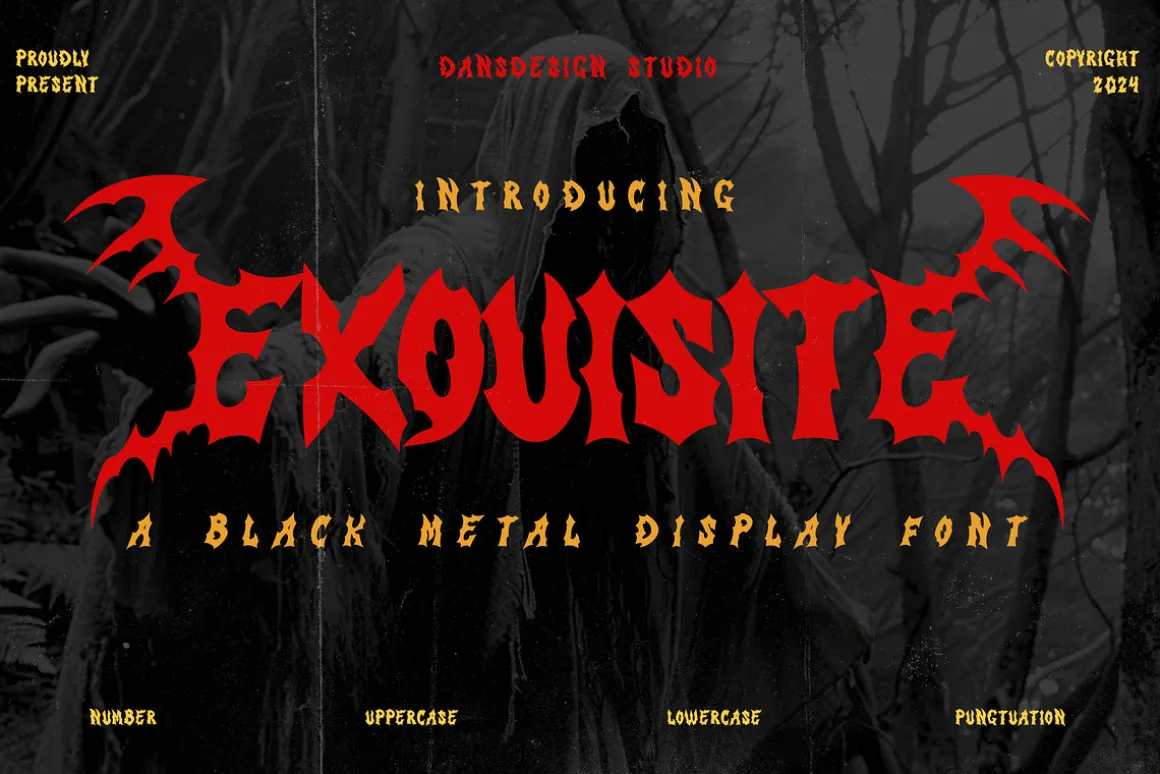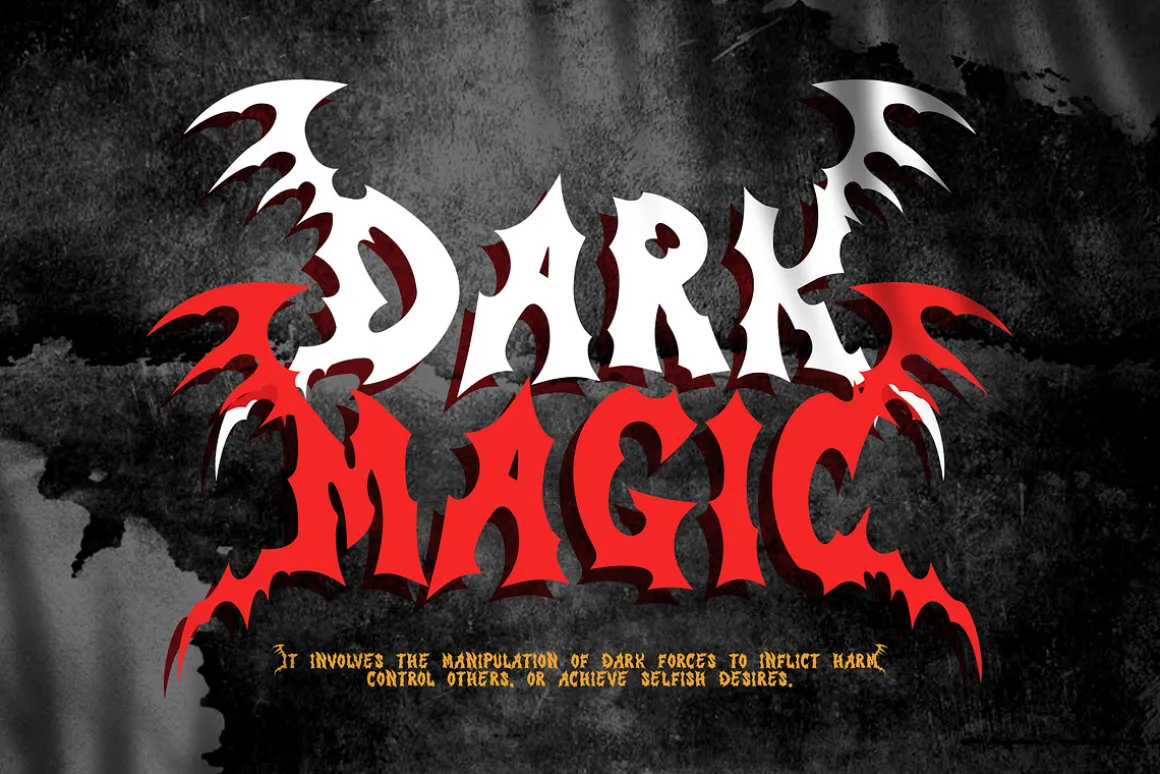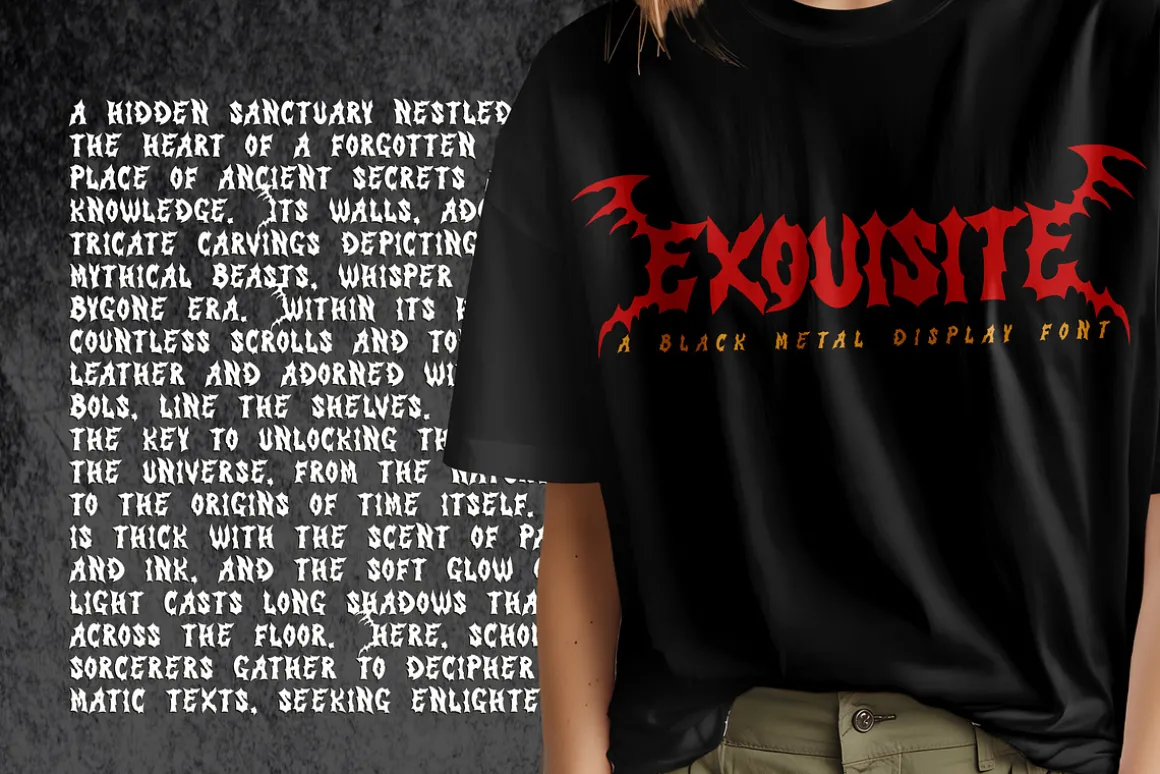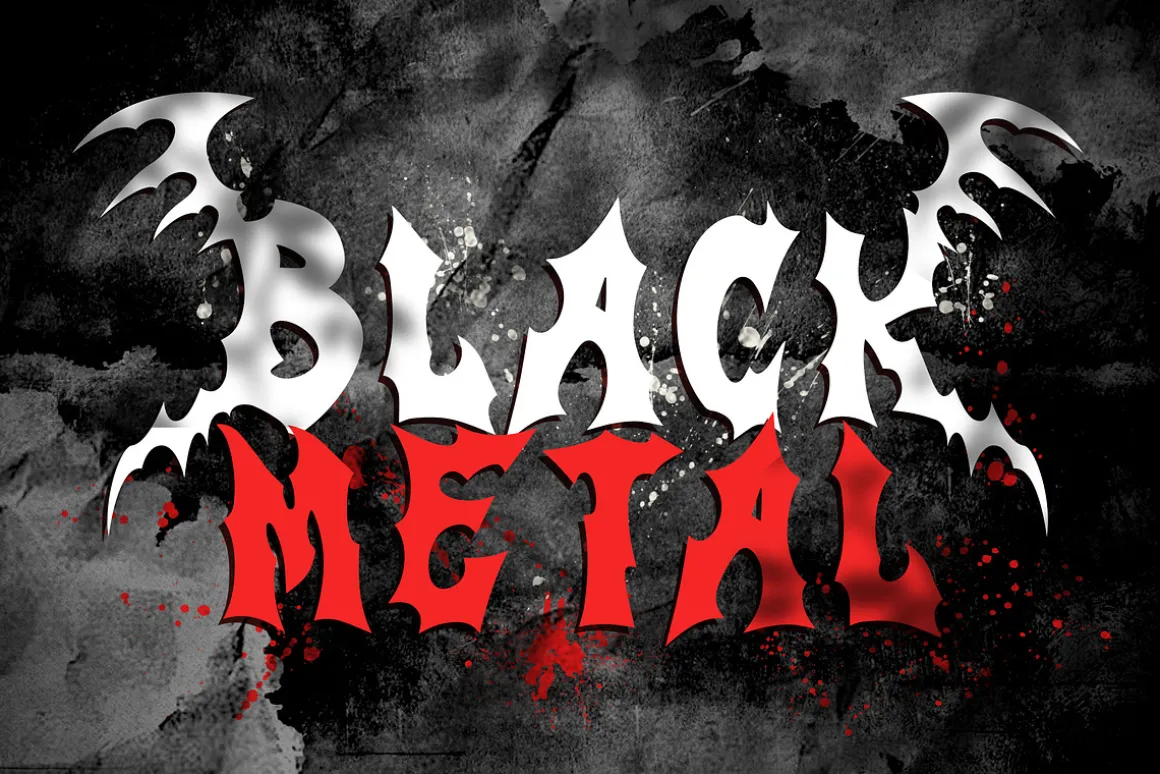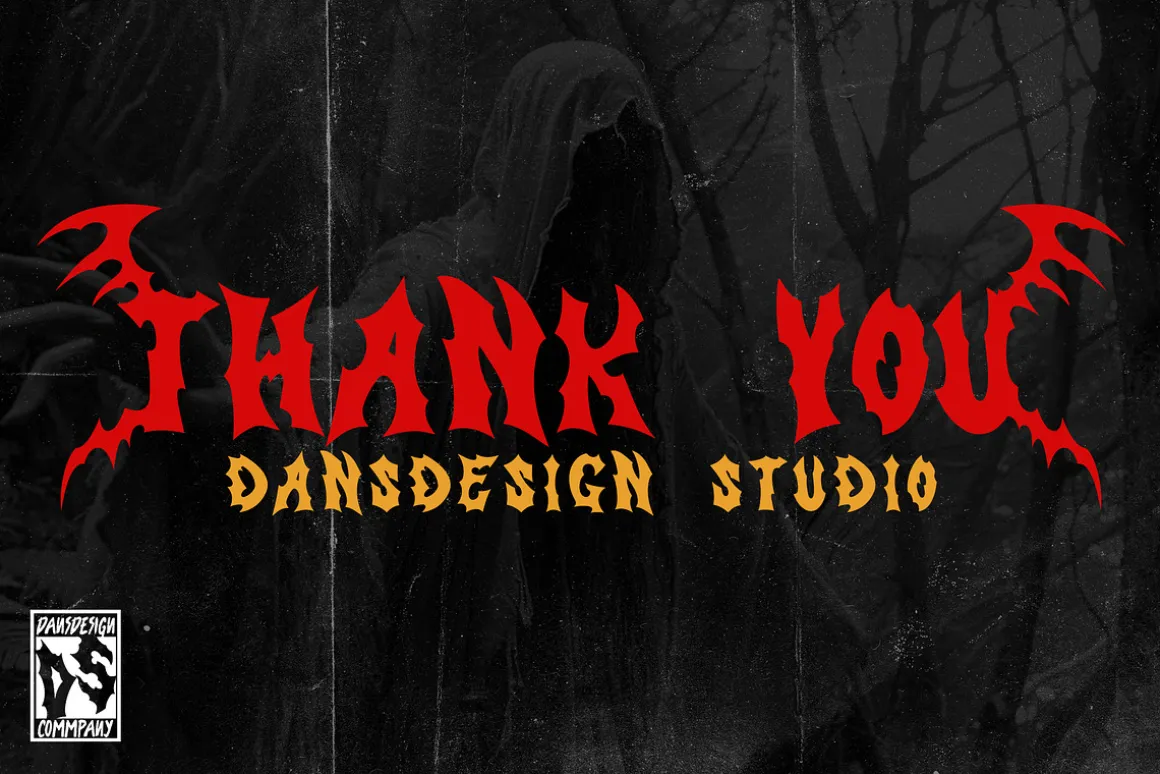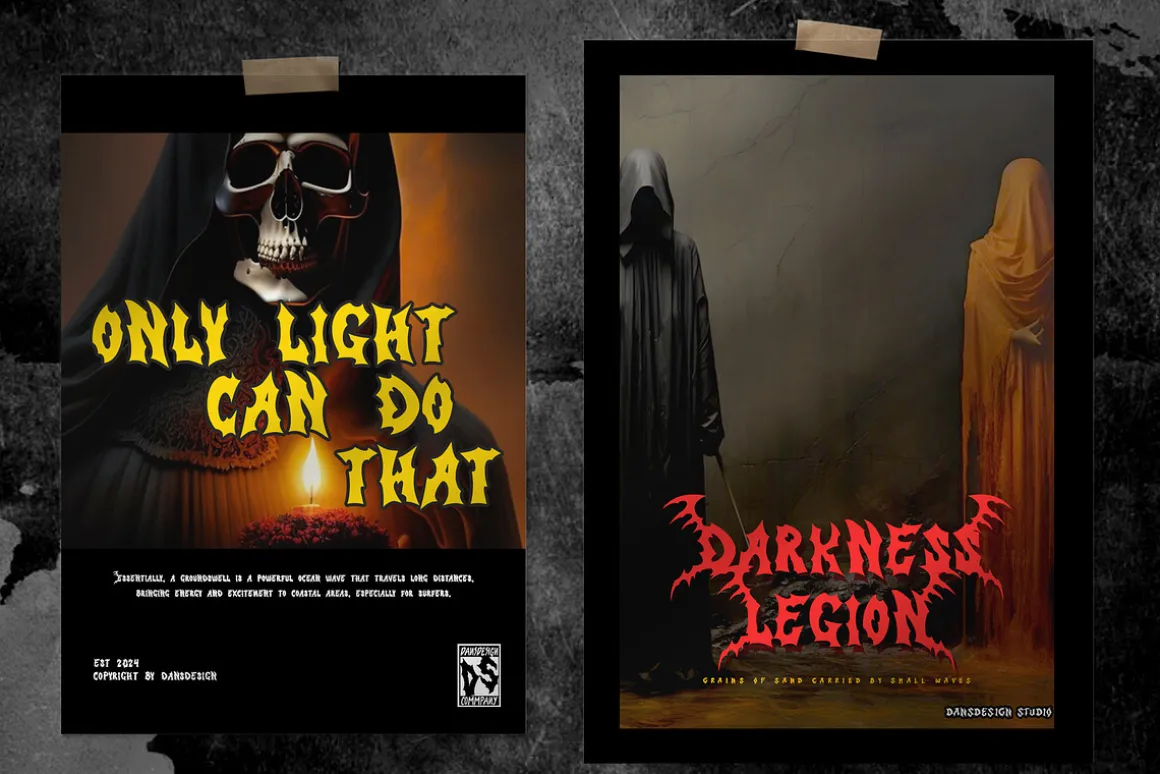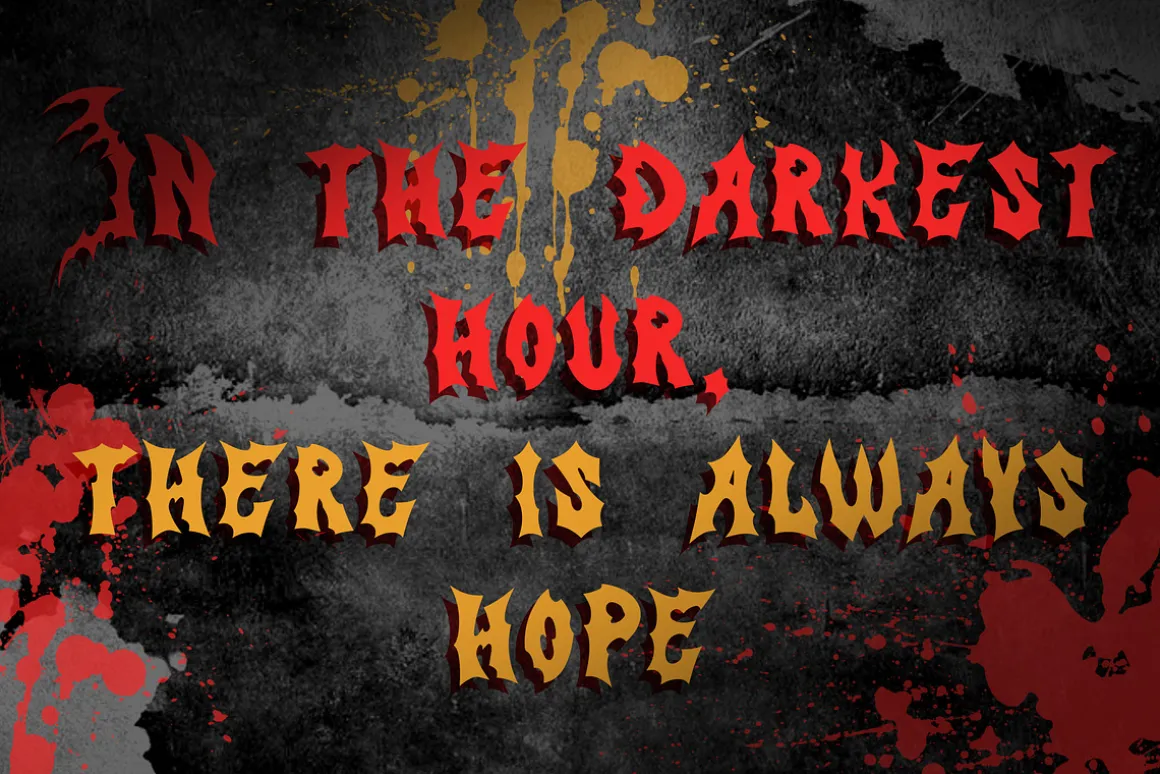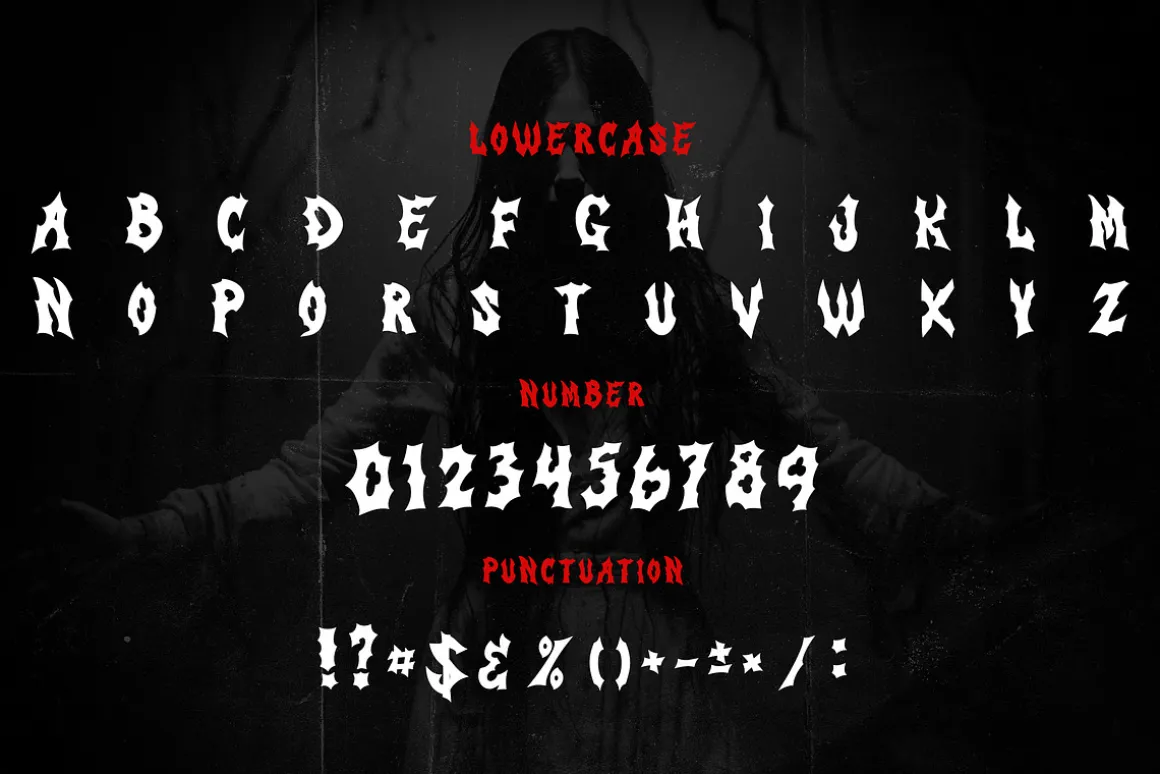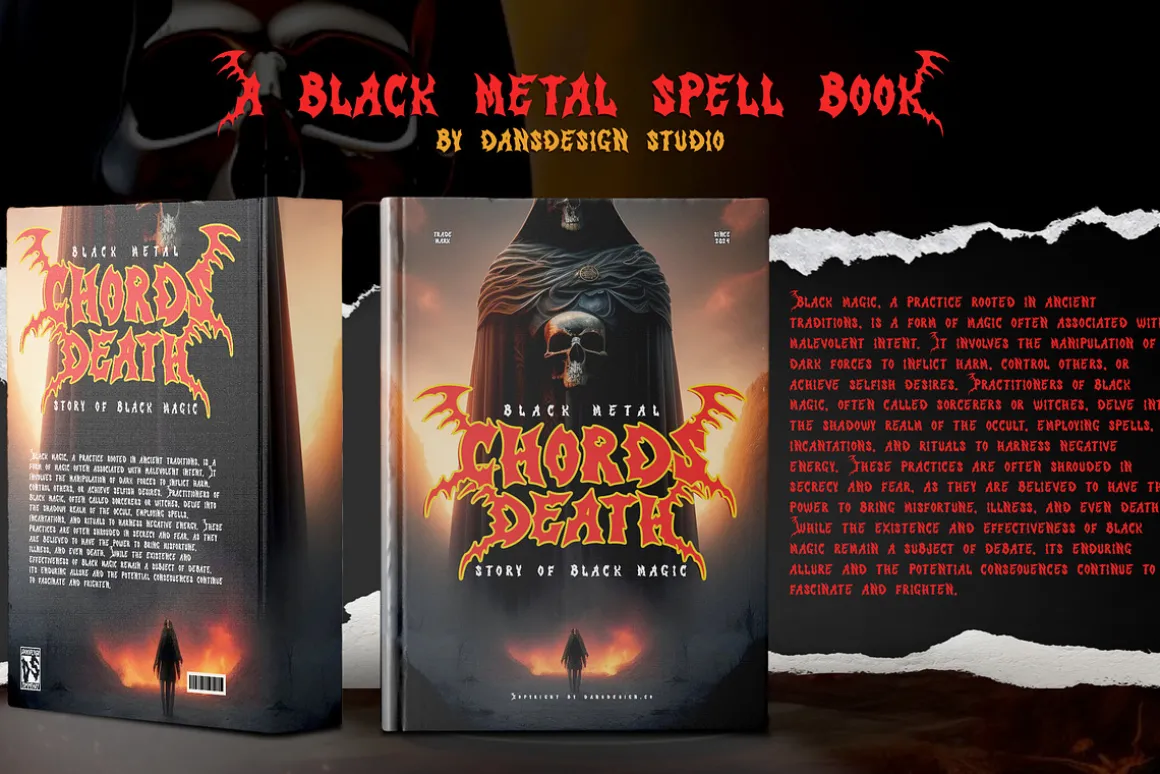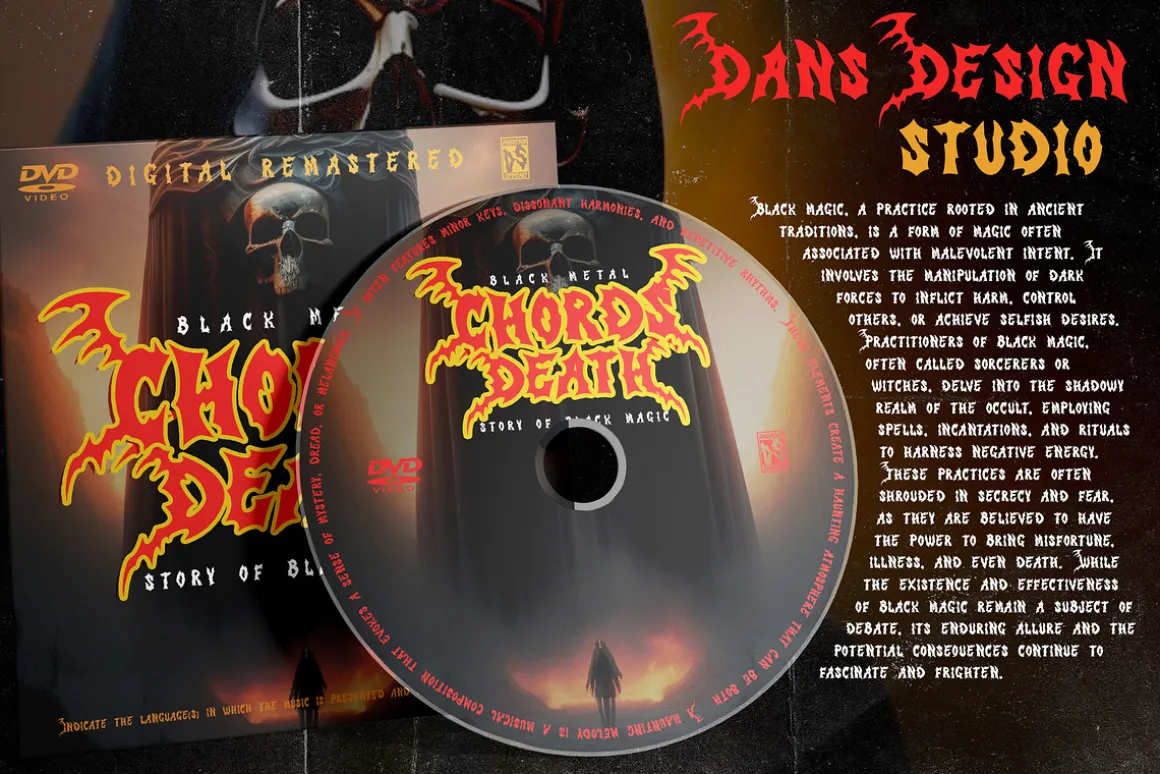
Exouisite Black Metal Display Font
Exouisite Black Metal Display Font a distinct, highly detailed, and chic Blackletter font. It would make a great choice for exquisite retro-urban designs, tattoo business branding, logos, vintage designs, and more.